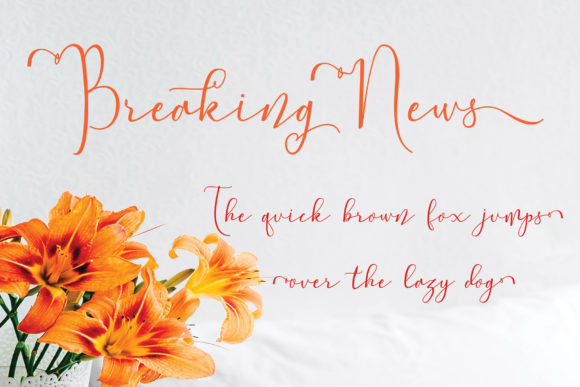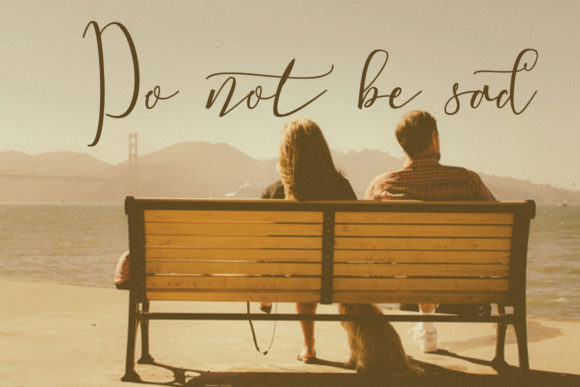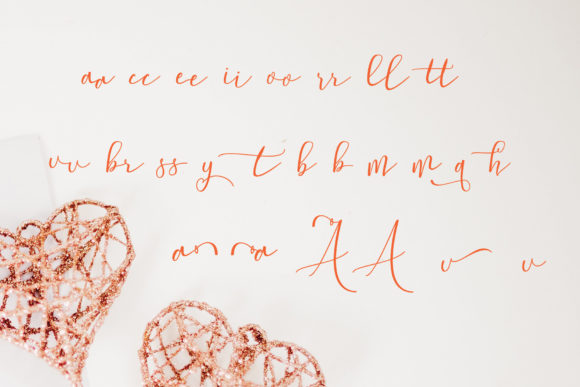
Maybey Font
About Maybey Font
Maybey is an inspiring and stunning handwritten font full of authenticity. It will turn any design project into a standout.